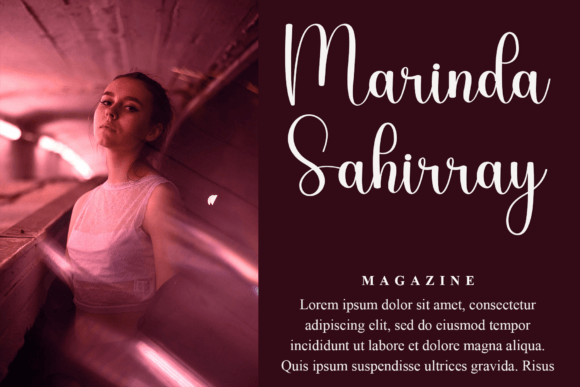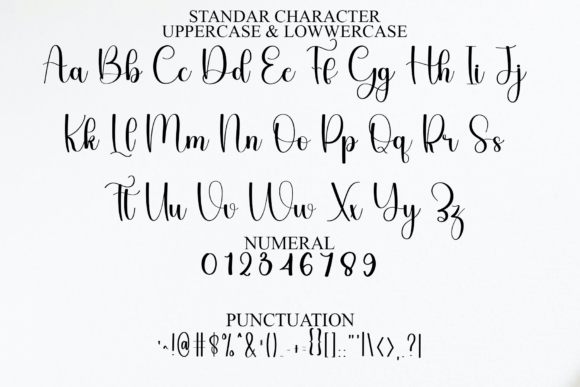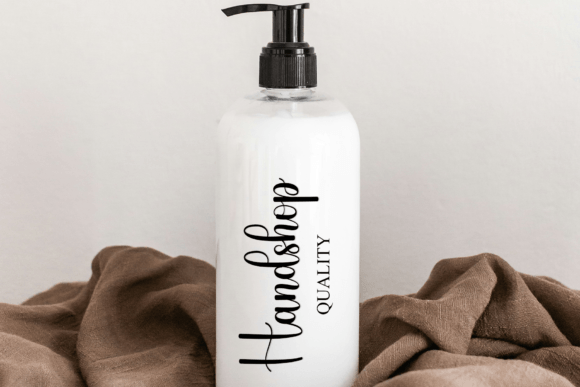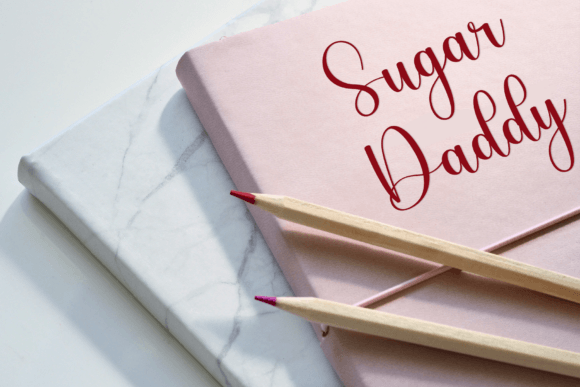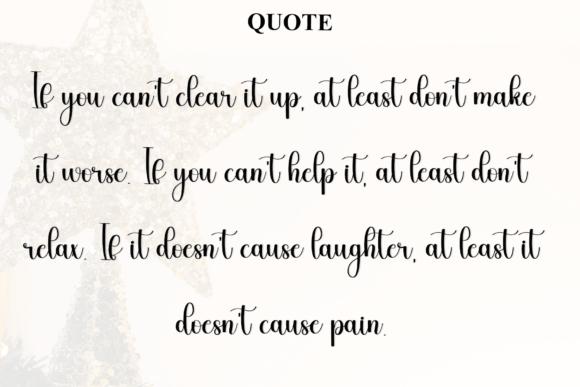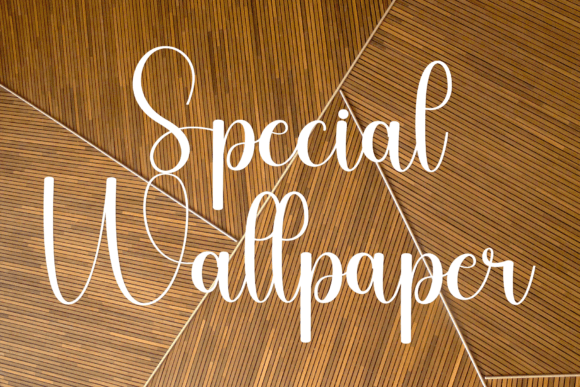
The Geometric Font: Elevating Designs with Elegance
I’ll never forget the time I was working on a branding project for a luxury fashion client. I had spent hours perfecting the logo design, but something felt off. The font I was using just didn’t convey the level of sophistication and elegance the brand required. That’s when I stumbled upon the Geometric font. With its smooth, flowing letters and perfect blend of modern sleekness and classic curves, it was love at first sight! ✨
An Honest Review of Geometric Font
- ✨ Smooth, flowing letters that add a touch of elegance to any design
- ✅ Perfect blend of modern sleekness and classic curves, making it versatile for various design projects
- 🔥 Attention-grabbing and memorable, perfect for logos, headlines, and titles
While the Geometric font is amazing, there are a few things to keep in mind: 🤔
- ⚠️ Legibility at small sizes: The font’s elegant lines and curves can make it a bit tricky to read at very small sizes. Make sure to test it at different sizes to ensure it’s legible for your specific project.
- ⚠️ Overuse of stylistic alternates: With great power comes great responsibility! Be mindful of overusing the font’s stylistic alternates, as it can make your design look cluttered.
- Experiment with OpenType features like ligatures and stylistic alternates to add some flair to your text.
The Geometric font was inspired by the works of renowned designers from the early 20th century, who sought to create a new language of form and expression. The font’s creator aimed to distill the essence of modernity and elegance into a single, versatile typeface. The result is a font that’s both timeless and trendy, perfect for designers looking to add a touch of sophistication to their work.
Q: What makes the Geometric font unique?
A: The Geometric font’s unique blend of smooth, flowing letters and sharp angles sets it apart from other fonts. Its elegant lines and curves make it perfect for designs that require a touch of sophistication.
Q: Is the Geometric font suitable for body text?
A: While the Geometric font is stunning for headlines and titles, it may not be the best choice for body text. Its elegant lines and curves can make it a bit tricky to read in large blocks of text.